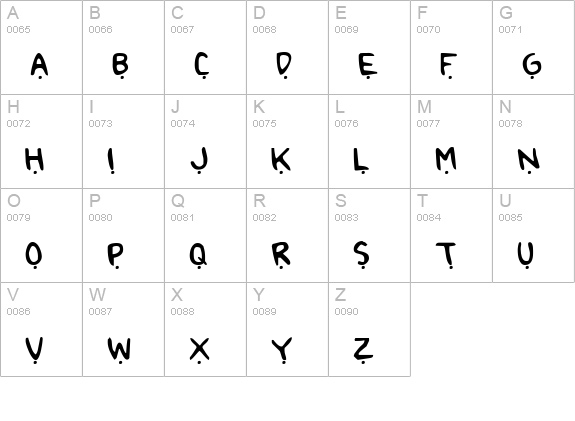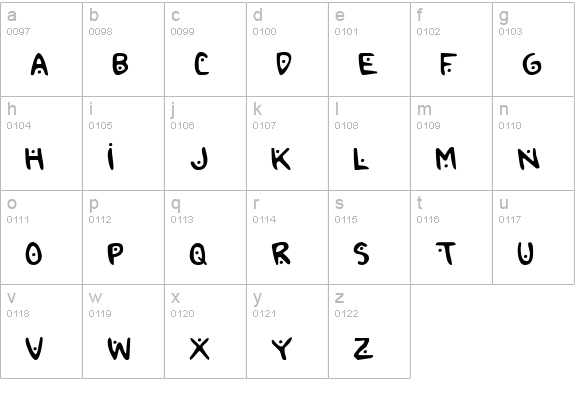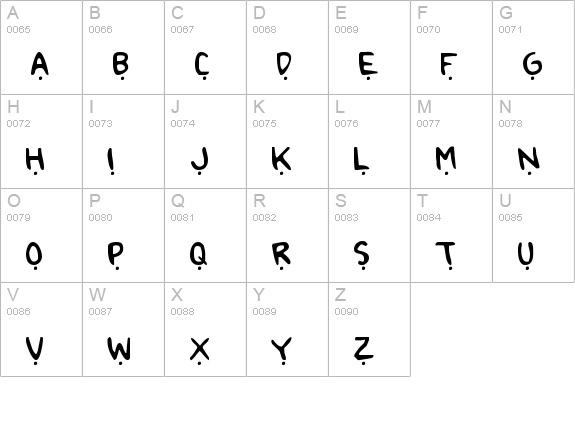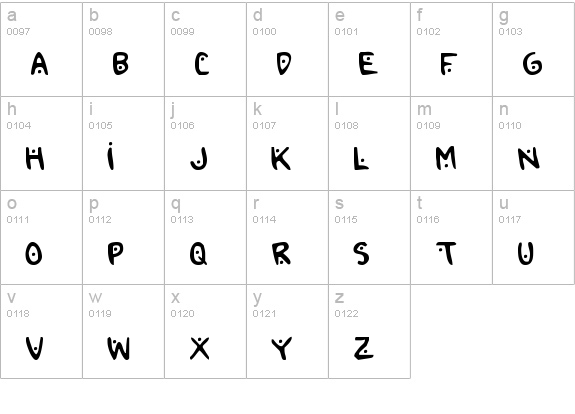
2Toon2 Font Details
Introducing 2Toon2 font - a playful and whimsical typeface that will add a touch of fun to your design projects. This delightful font features cartoonish elements and a unique hand-drawn style that is perfect for creating eye-catching designs. Whether you're working on children's books, posters, invitations, or any other creative project, 2Toon2 font is sure to bring a smile to your audience. Best of all, 2Toon2 font is available for free download at FontsMarket.com. That's right, you can easily access this charming font and start using it in your projects right away. Don't miss out on the opportunity to add a playful twist to your designs with 2Toon2 font today!